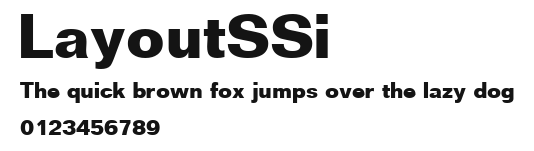
• Font Name: LayoutSSi
• Full Font Name: LayoutSSi Bold
• PostScript Name: LayoutSSiBold
About LayoutSSi.ttf
LayoutSSi.ttf is a modern, elegant sans-serif font designed for ultimate readability and visual harmony. Perfect for branding, headlines, web design, and print materials.